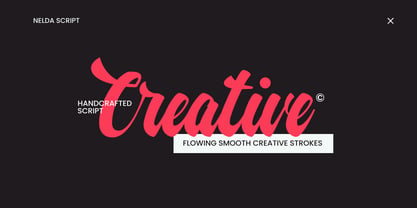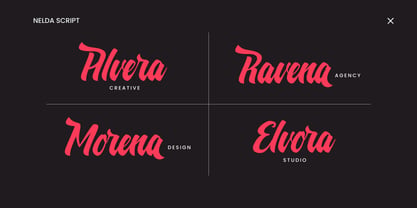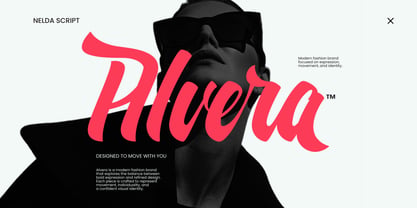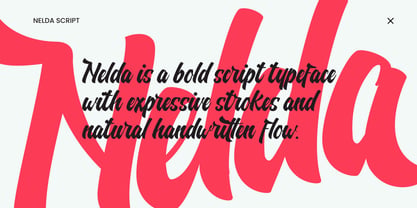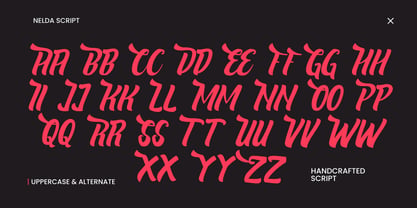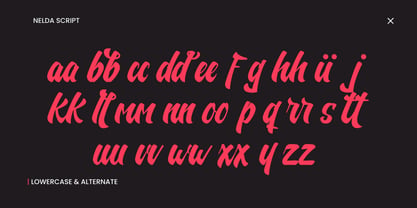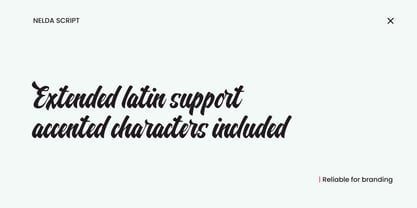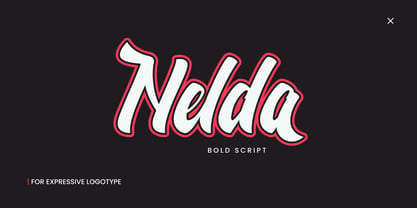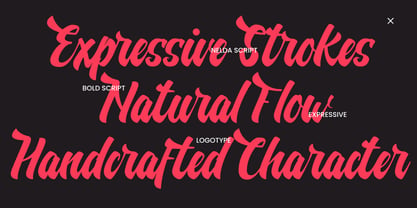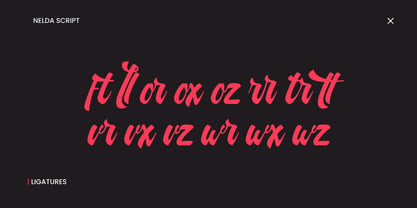
Nelda Script
by Showup! Typefoundry
The Nelda Script Font Family was designed by Aulia Rahman and published by Showup! Typefoundry. Nelda Script contains 1 styles. More about this family
Nelda is a modern bold script typeface designed for expressive branding and distinctive logotypes. With smooth curves, confident strokes, and natural flow, Nelda delivers a strong yet elegant script character that feels contemporary and versatile. This typeface features carefully crafted ligatures and stylistic alternates, allowing designers to create unique wordmarks and custom-looking logos with ease. Every letter is built to connect beautifully, making Nelda especially effective for brand identities, fashion labels, creative studios, and headline typography. Nelda works best at medium to large sizes where its personality can truly shine. Whether used for logos, packaging, posters, or digital branding, it brings a bold script presence that feels polished, modern, and expressive. Designed to balance readability with personality, Nelda is a reliable choice for designers who want their typography to stand out while remaining refined and professional.
Designers: Aulia Rahman
Foundry: Showup! Typefoundry